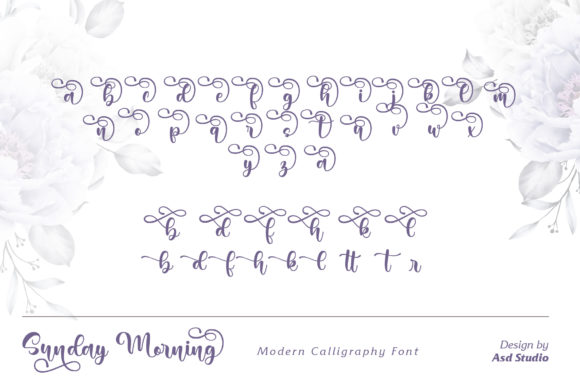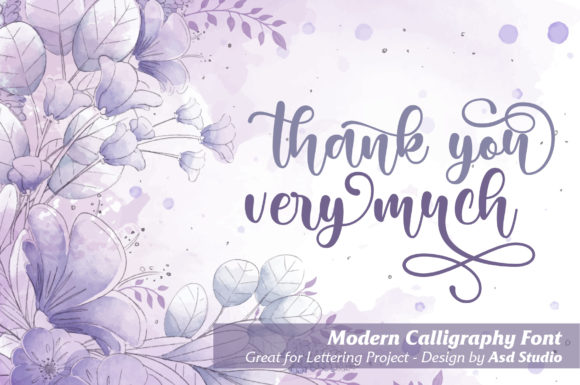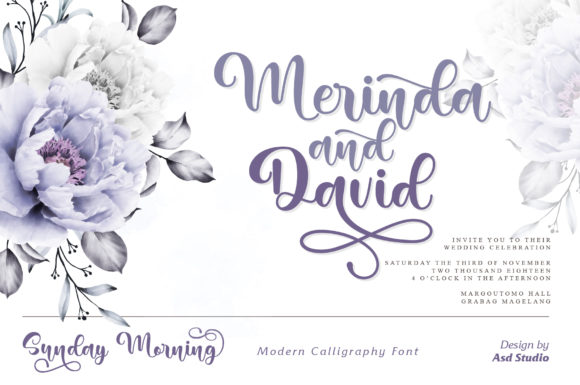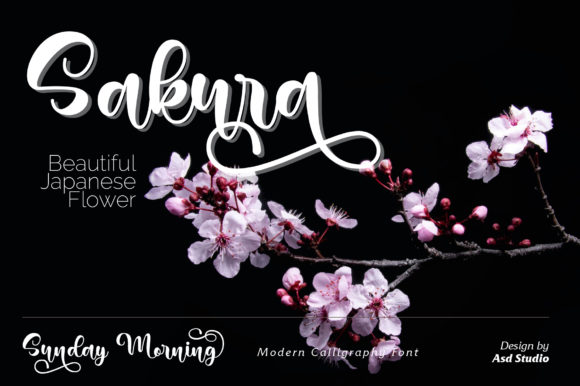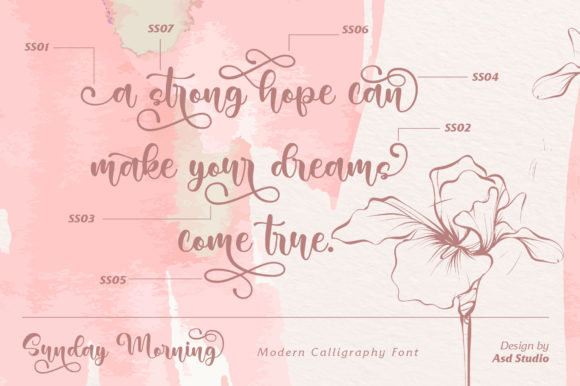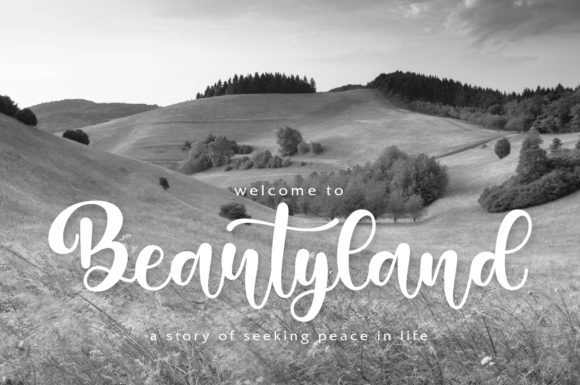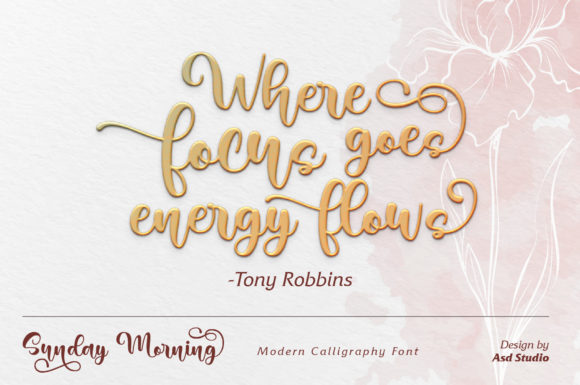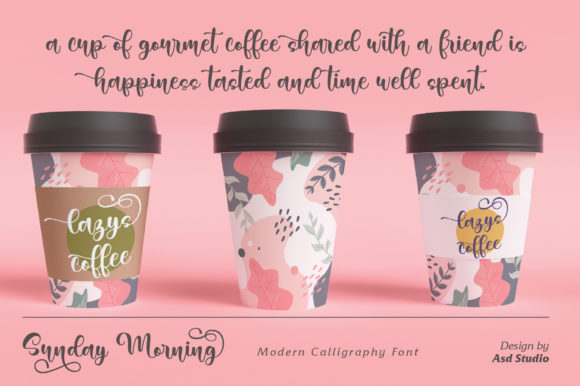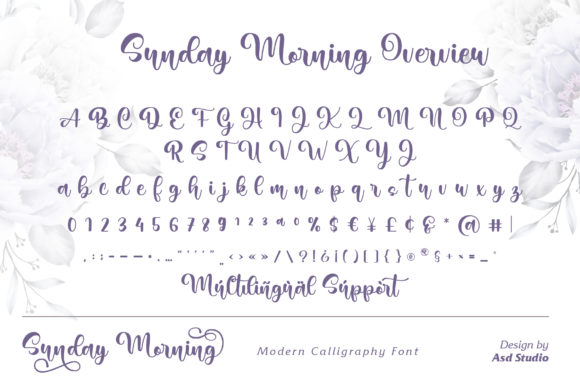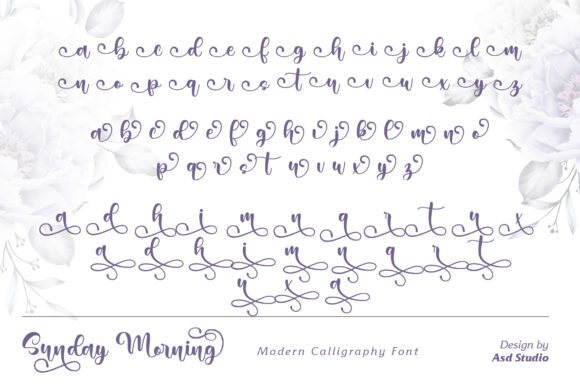
Sunday Morning Font
Sunday Morning is an exquisite, lovely and flowing handwritten font. It maintains its classy calligraphic influences while feeling contemporary and fresh. Fall in love with this font and bring your projects to the highest levels!